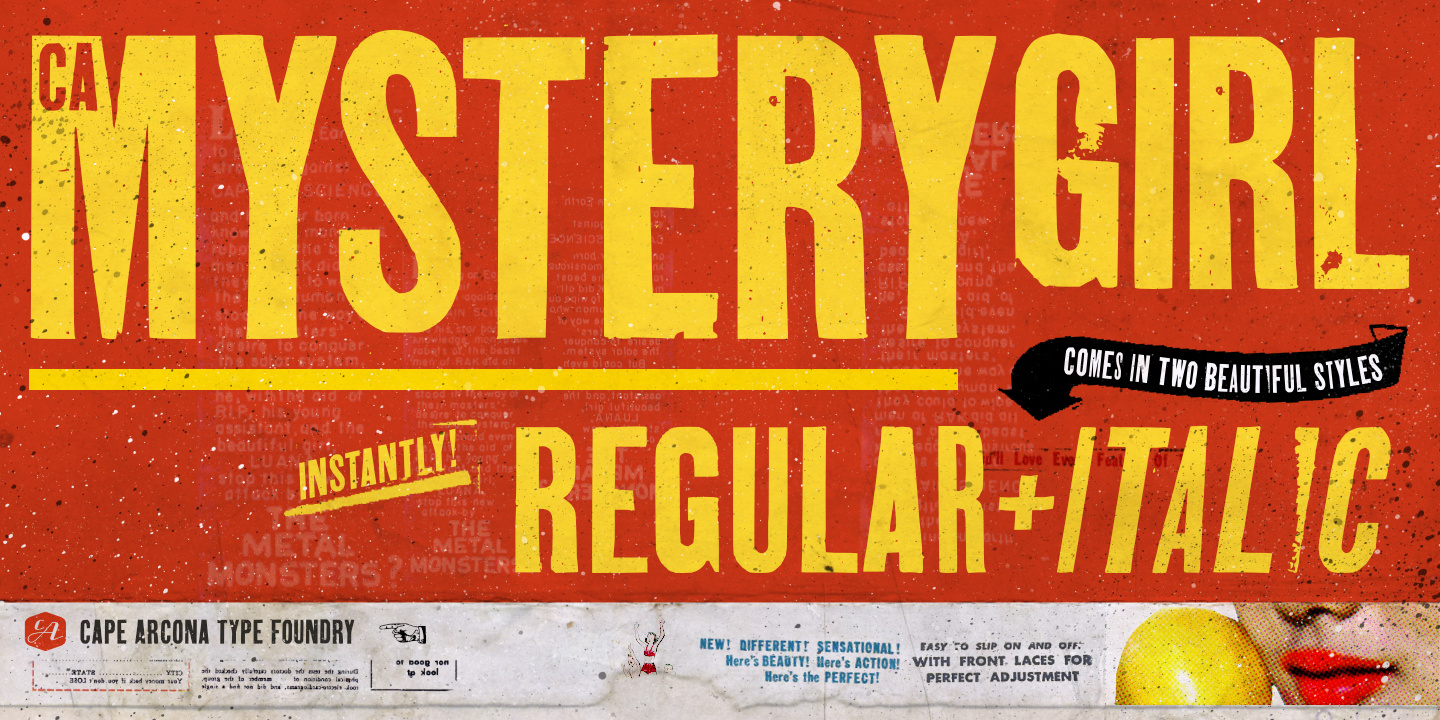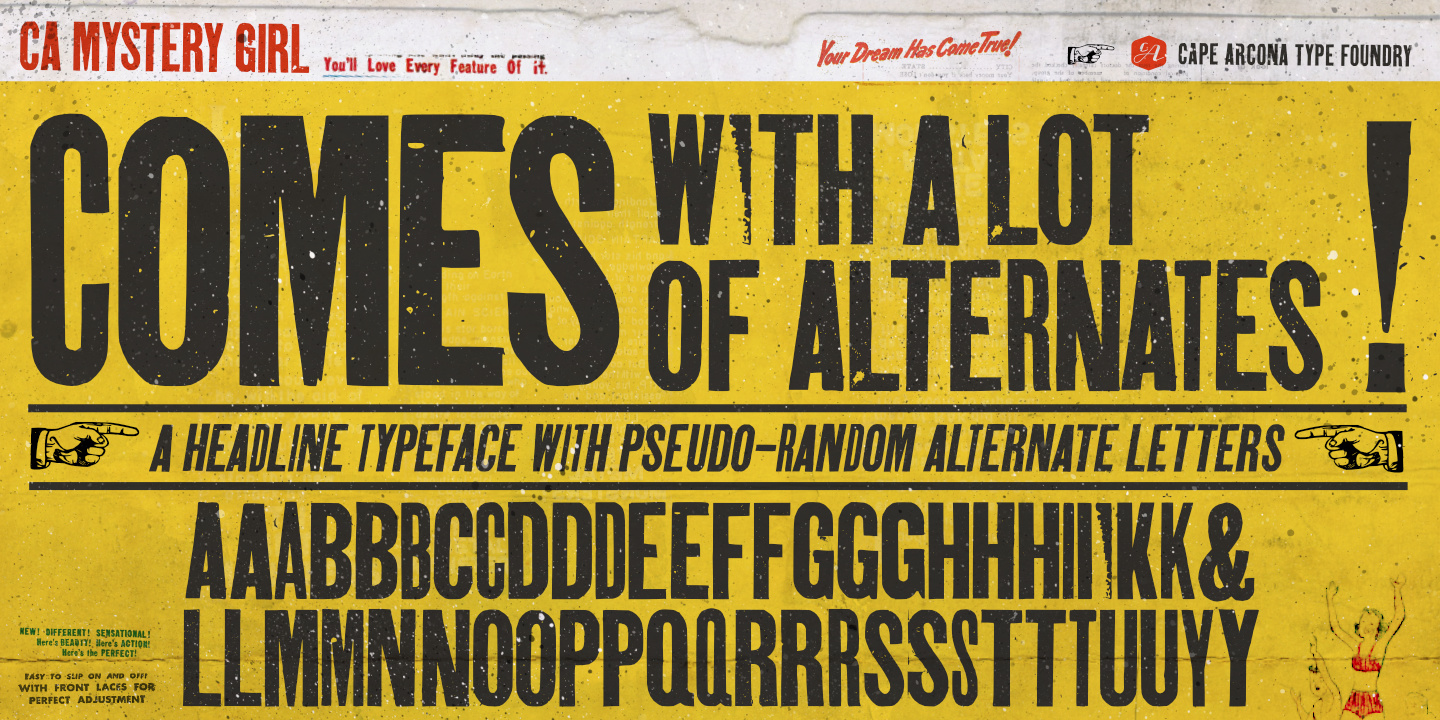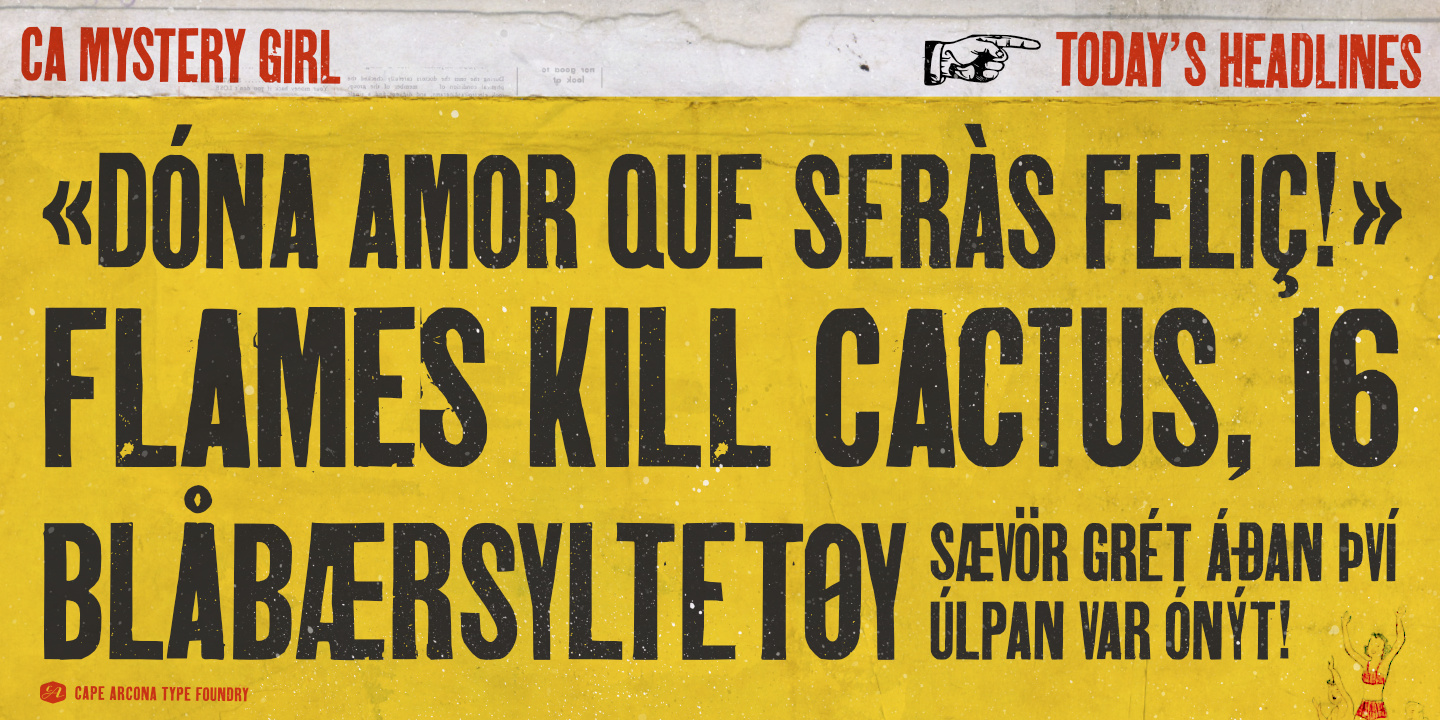
CA Mystery Girl — Elegance meets accident. A sturdy distressed all-caps typeface that gives you the feeling of the happy little incidents that may happen when you print with silkscreen or letterpress. A number of alternative letters embedded in a pseudo-random OpenType feature does the magic. Get yourself surprised! CA Mystery Girl speaks many languages, at least all those covered by the extended Latin character set. Which means you can travel to Iceland, Turkey, France, Germany or Poland, this girl will always be your interpreter.